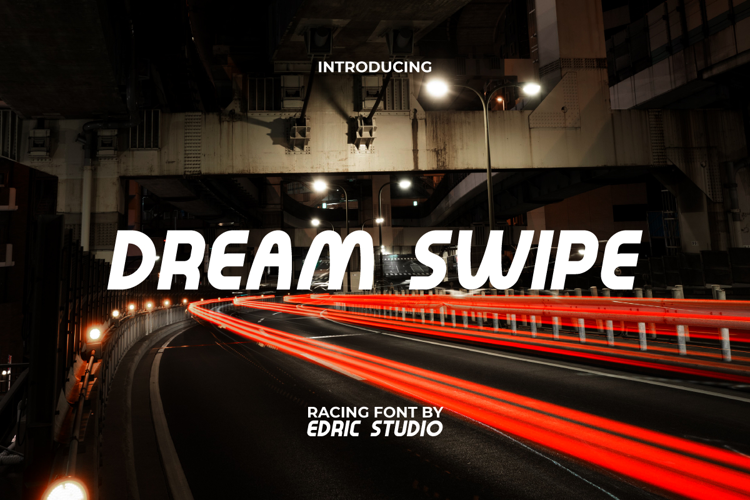
Dream Swipe Font
Dream Swipe Font is a unique modern display font with a racing style. It will give a different touch to your design. This will be great for apps, billboard, blogs, brochure, business card, cover, flyer, header, ID card, logos, packaging design, poster, price label, quotes, screen print, signage, sticker, title, website, and more.
Dream Swipe Font comes with a full set of ALL CAPS for Uppercase and Lowercase letters, Number, Punctuation and Symbol. Racing themed fonts are truly unique, never disappoints! Can be adapted to suit any industrial needs, such as ads, author, content creator, craft, fashion, game, gifts and merchandise, graphic design, menswear, printing, publishing, racing, sport, web designer, writer, etc.